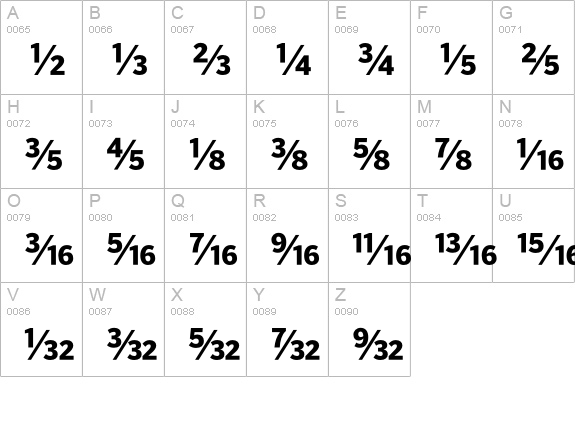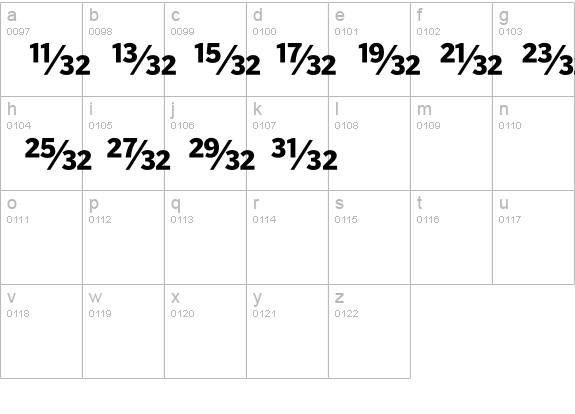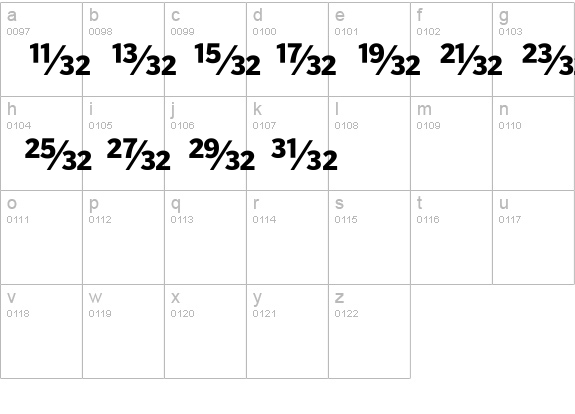
PoynterAgate-RegularFracThree Font Details
PoynterAgate-RegularFracThree font is a modern and sophisticated typeface that exudes elegance and professionalism. With its clean lines and classic design, this font is perfect for a wide range of projects, from editorial layouts to branding materials. The unique fractional numerals add a touch of flair and versatility to your designs. Best of all, this font is available for free download at FontsMarket.com, making it easily accessible for designers and creatives looking to add a touch of sophistication to their projects without breaking the bank. Don't miss out on this opportunity to elevate your designs with the timeless beauty of PoynterAgate-RegularFracThree font. Download it today and see the difference it can make in your work.